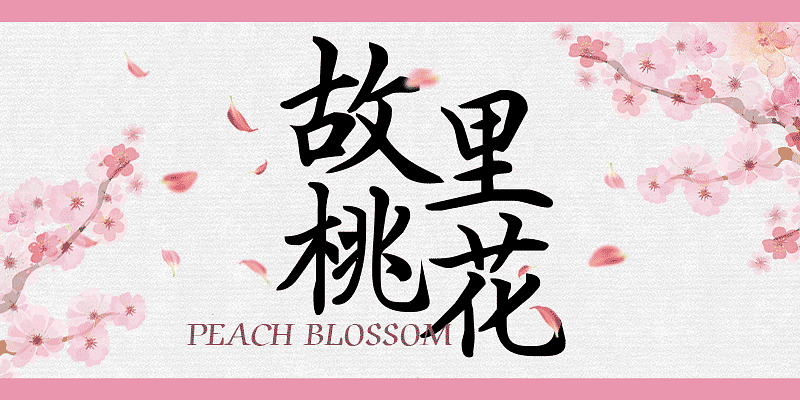
HelloFont ID Tao Hua Shi Ti Font Free Download is an elegant, calligraphic Chinese-inspired typeface that combines traditional brushstroke techniques with a clean and modern aesthetic. The font is known for its graceful strokes, balanced letterforms, and subtle cultural influence, making it perfect for projects such as branding, invitations, editorial design, product packaging, and cultural-themed projects.
The HelloFont ID Tao Hua Shi Ti Font is designed to evoke sophistication and artistic beauty, while ensuring excellent legibility. Its harmonious balance of traditional influences and contemporary design makes it ideal for both digital and print applications.